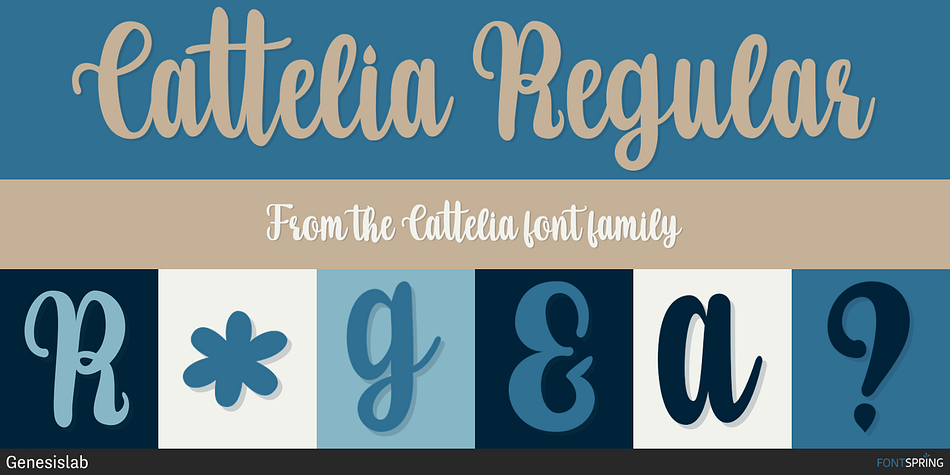
Cattelia Regular
Cattelia is a brush script font family published by Genesislab.
Cattelia handwritten, modern calligraphy script, which combines classic style with modern style calligraphy, make this a collection in your font library